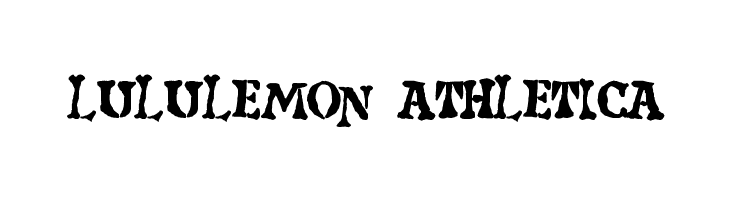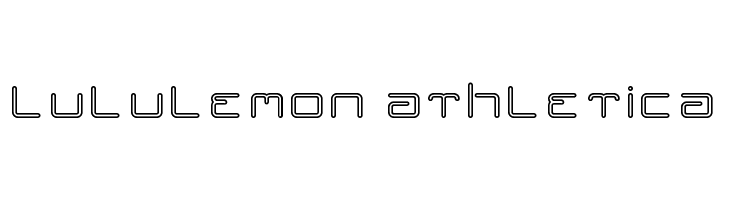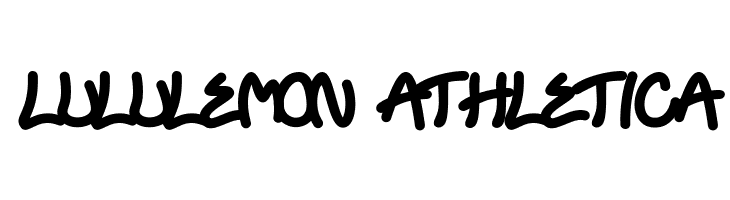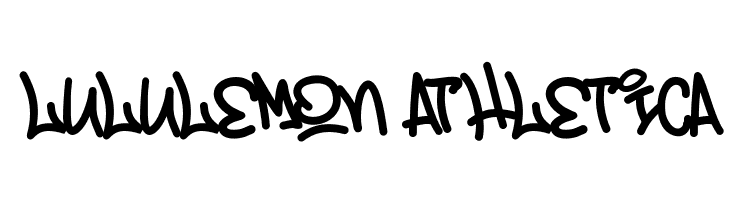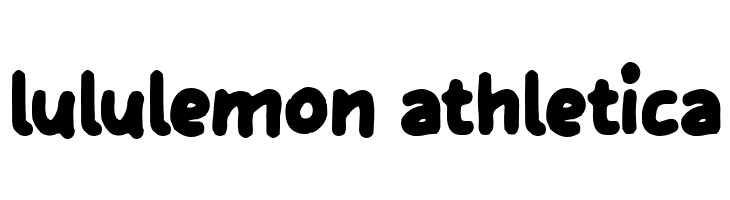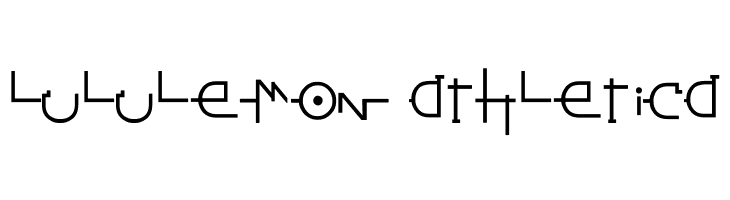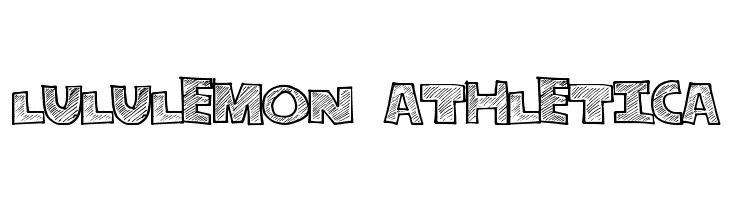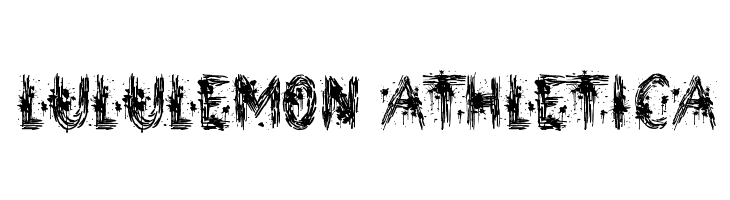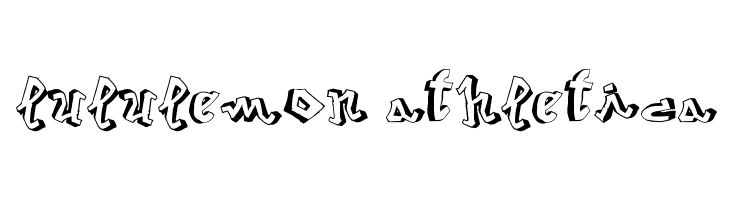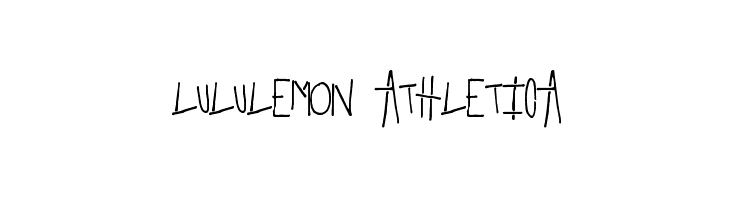
A bold, distressed font with a rugged, grunge-like appearance.
Playful, bold, hand-drawn font.
A bold, graffiti-inspired font with a three-dimensional, street art style.
A gritty, urban font with a distressed, graffiti-inspired style.
A bold, graffiti-inspired font with a dynamic, hand-drawn style.
A bold, graffiti-inspired font with dynamic strokes and high contrast.
A modern, geometric font with abstract and artistic elements.
A playful, hand-drawn font with elongated, irregular letterforms and a whimsical style.
A bold, hand-drawn font with a striped pattern and playful style.
A futuristic, tubular font with geometric and playful elements.